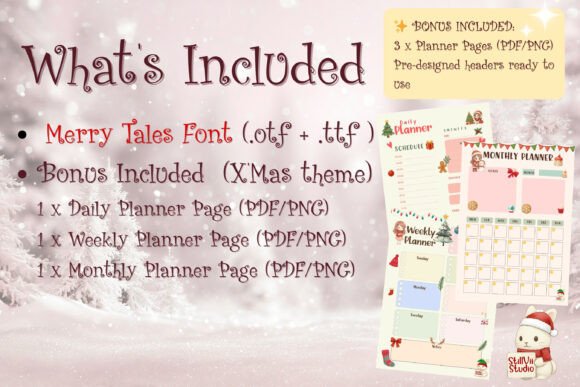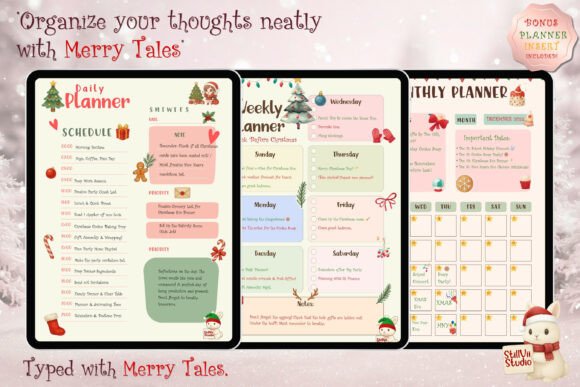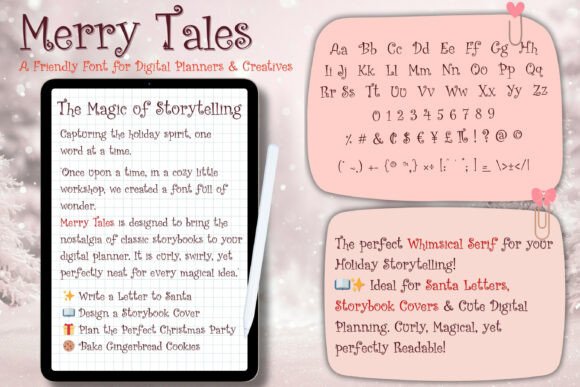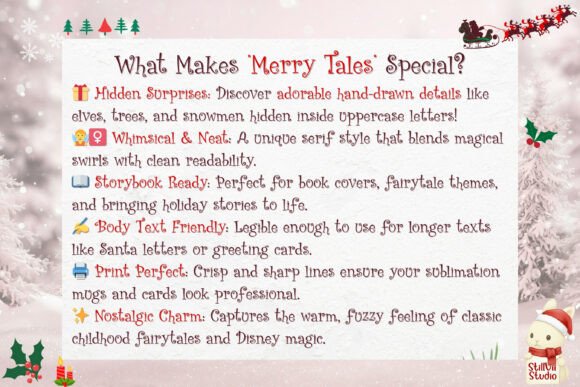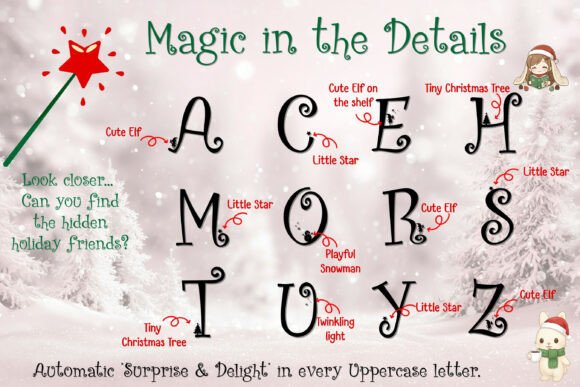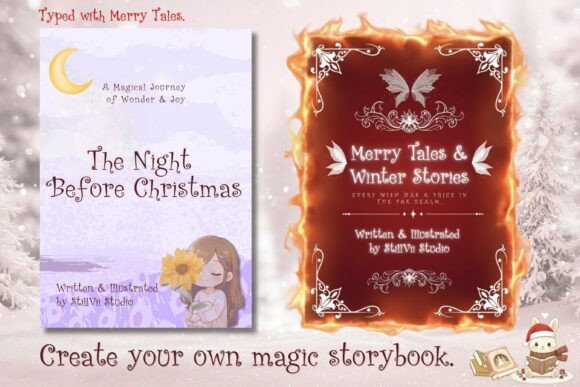
Introduction to Merry Tales Font
Once Upon a Christmas… Bring the Magic of Storybooks to Life.
📖✨Meet “Merry Tales”, the most enchanting and whimsical serif font designed to turn your holiday projects into a classic fairytale Inspired by the nostalgic covers of beloved childhood storybooks, this font features playful curls and charming swirls that feel warm, fuzzy, and full of wonder.
Key Features of Merry Tales Font
Why Choose Merry Tales Font?